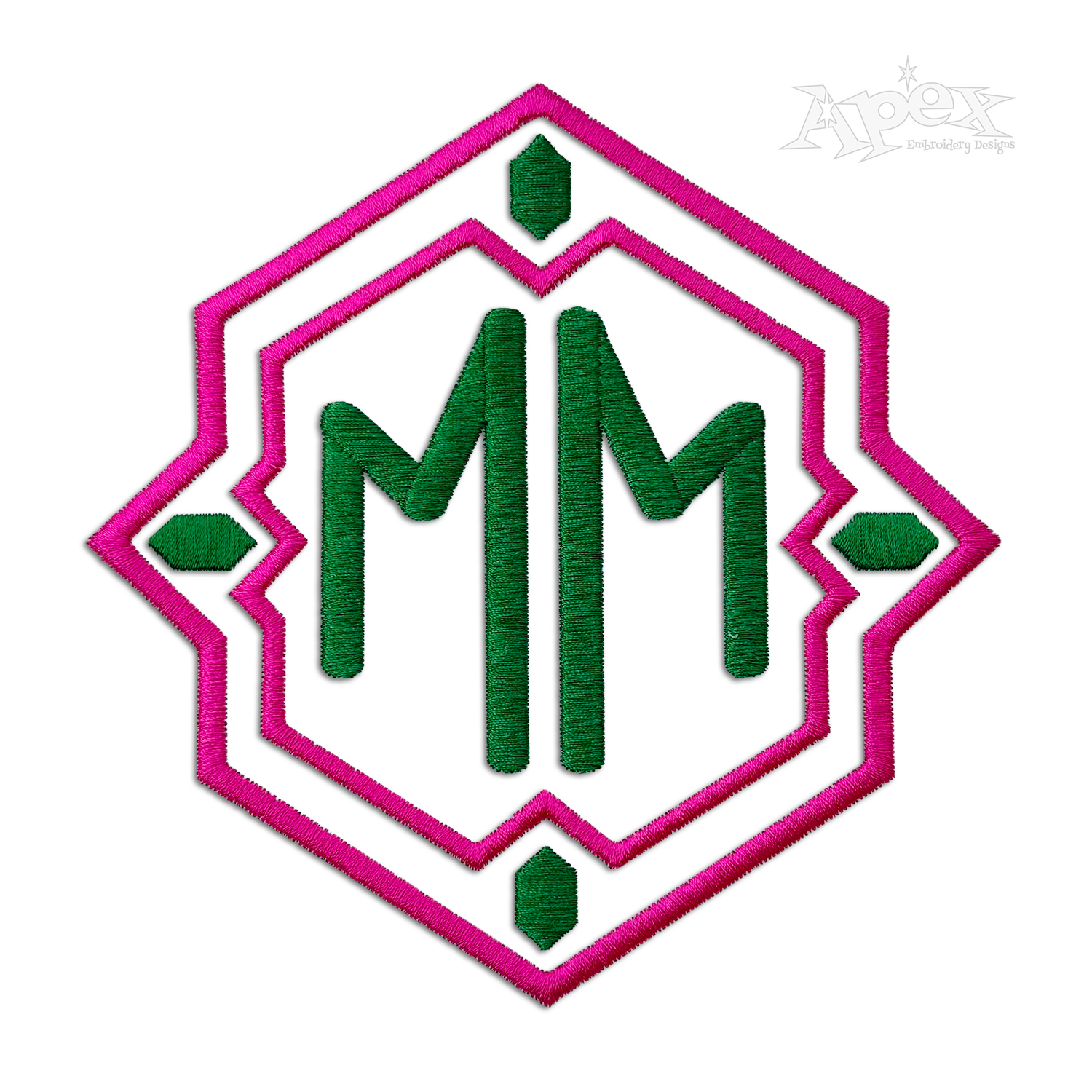
Hexa Hexagon Monogram Embroidery Font
Born from the intersection of architectural geometry and time-honored bespoke tailoring, the Hexa Hexagon Monogram Embroidery Font brings a crisp, modern aura to personalized crests. When digitizing this collection, we envisioned the sharp angles of mid-century motifs harmonizing with the fluid grace of custom monogramming. Each paired letterform is sculpted to hug the contour of the iconic hexagonal perimeter, creating an intimate, unified insignia. Whether rendered in tone-on-tone silk for an understated bridal aesthetic or stitched in bold, contrasting thread across heirloom linens, this alphabet captures the essence of contemporary heirloom design with clean, striking elegance.
Designed with meticulous scaling to ensure flawless stitch density, this two-letter alphabet suite includes precision-digitized letters alongside coordinating frames:
Project Ideas for Hexa Hexagon Monogram
- Bespoke Bridal Trousseau: Embroider matching duograms on pure silk getting-ready robes, ring bearer pillows, and bridal party travel luggage.
- Luxury Table Linens: Elevate hemstitched cocktail napkins and crisp linen runners with a tailored, modern geometric seal for entertaining.
- Personalized Gifting: Accentuate heavyweight canvas weekender bags, plush Turkish cotton bath towels, and monogrammed cosmetic cases for unforgettable wedding or anniversary gifts.
- Bespoke Resort Wear: Stitch subtle tone-on-tone crests onto linen camp shirts, lounge kimono jackets, or tailored pocket squares.
- Modern Nursery Accents: Welcome a new arrival with a sleek two-letter framed crest centered on heirloom baby blankets or keepsake nursery pillows.
- Corner Diagonal: Set at a 45-degree angle approximately 1.5 to 2 inches from the hemstitched border on linen cocktail napkins and pocket squares for an effortlessly balanced, tailored touch.
- Center Chest & Pocket Area: Position the 2-inch or 3-inch medallion 7 to 9 inches down from the shoulder seam on robes, linen shirts, or unstructured outerwear for a refined crest look.
- Heirloom Bedding Center: Align the 3-inch monogram cleanly along the top fold of crisp percale sheets or centered in the lower third of pillow shams to anchor your master suite decor.
- Canvas Bag Panels: Position squarely within the upper third of structured totes to ensure the geometric silhouette commands negative space with poise.
Hexa Hexagon Monogram Craft & Letterform Details
Digitizing a geometric monogram requires extraordinary mathematical precision. Unlike conventional curved script fonts, the Hexa Hexagon Monogram relies on strict 60-degree angles and deliberate structural intersections. Each letter has been individually balanced so that the outer strokes seamlessly echo the slope of the hexagonal border, while the center strokes nest naturally against its twin letterform.
We paid obsessive attention to satin stitch flow and entry-exit transitions. Rather than laying flat, uniform blocks of thread, the stitch directions actively bend and catch the light, imbuing the finished crest with a radiant, three-dimensional sheen. The underlay density has been meticulously engineered to prevent fabric pulling on delicate woven linens while giving the columns enough loft to feel delightfully rich to the touch. The outer frame features precision-mitered corners, guaranteeing razor-sharp geometric edges that execute cleanly on every stitch-out.